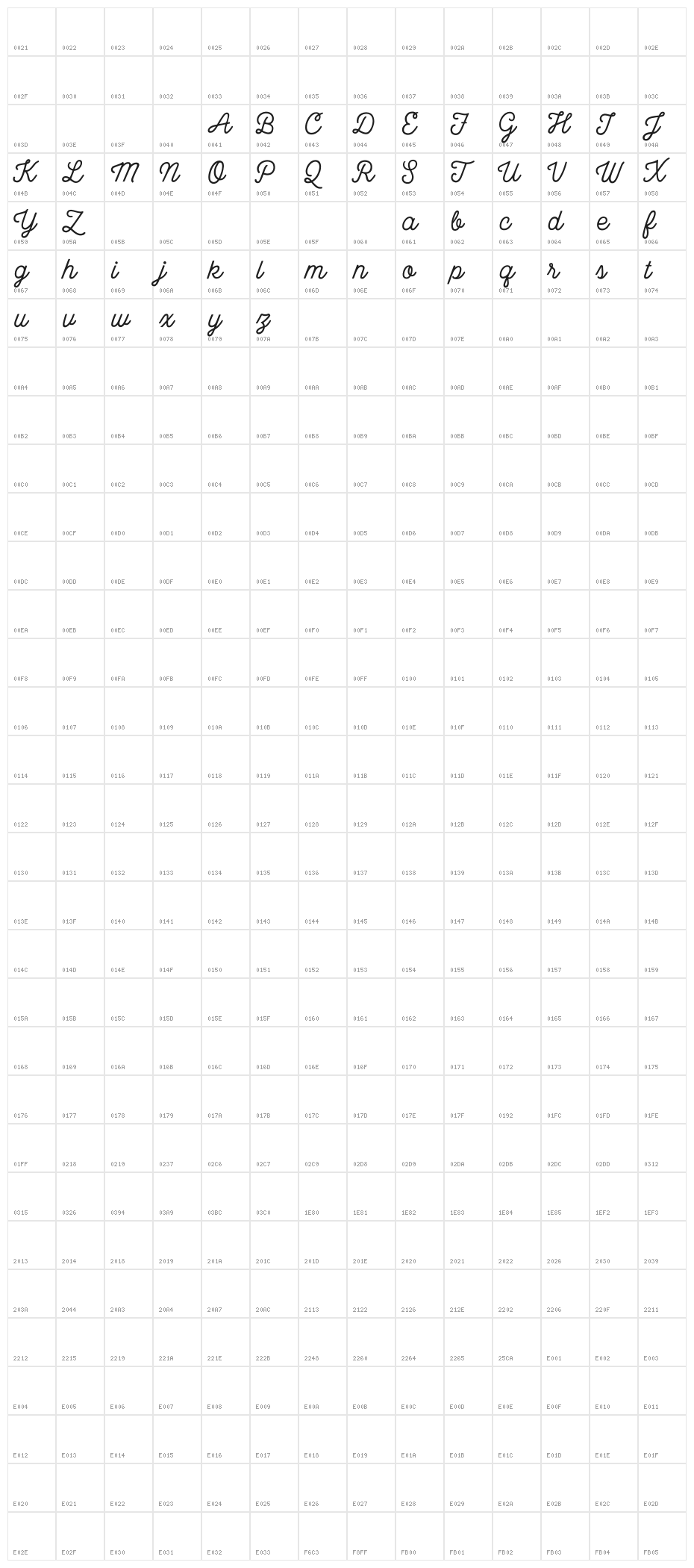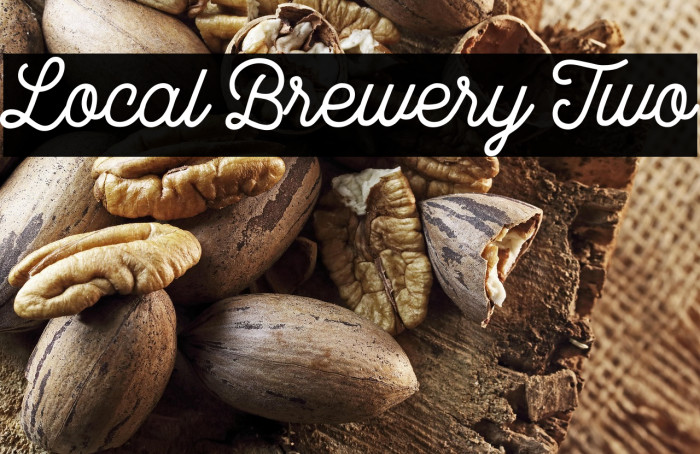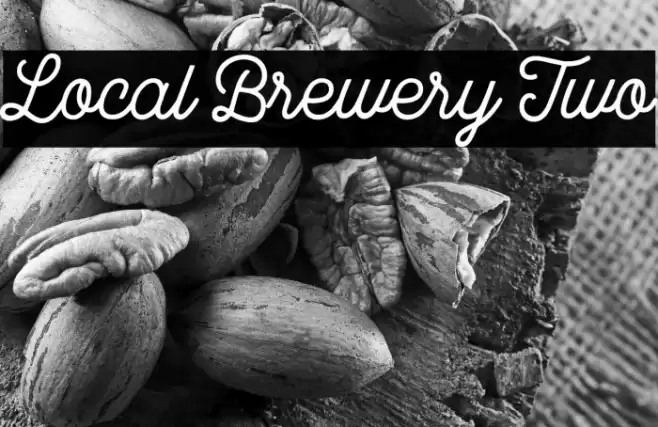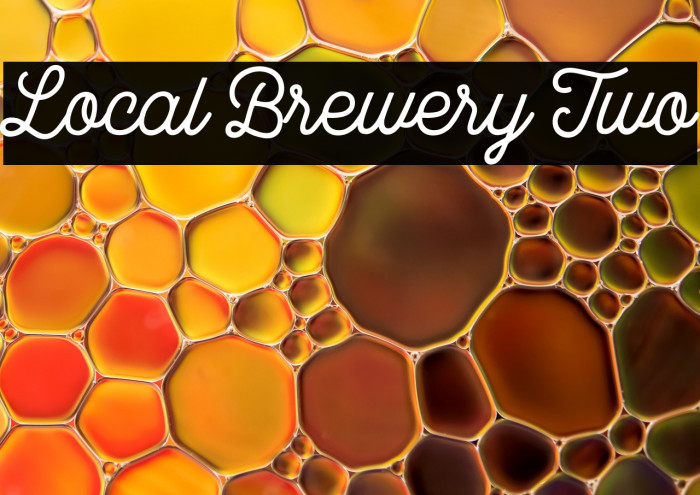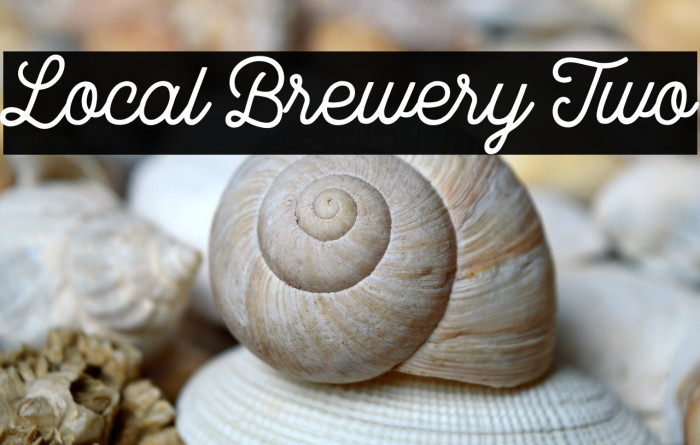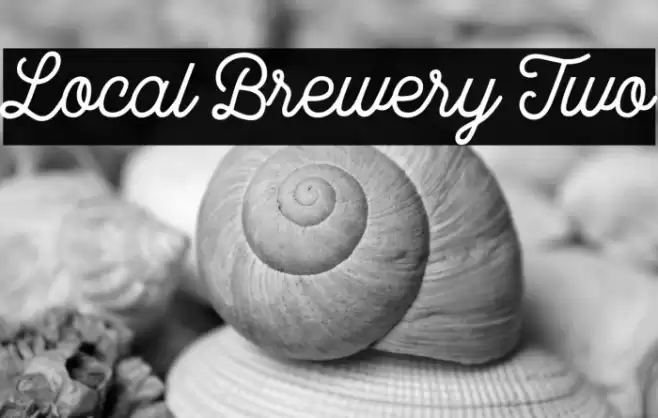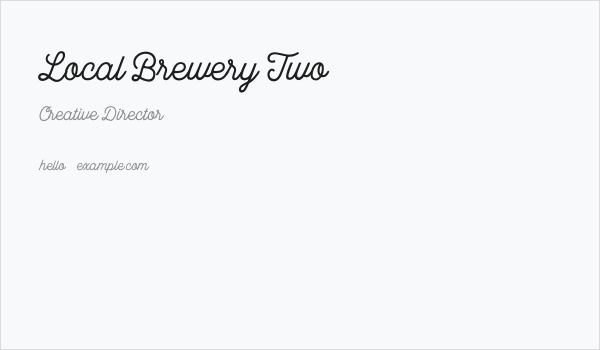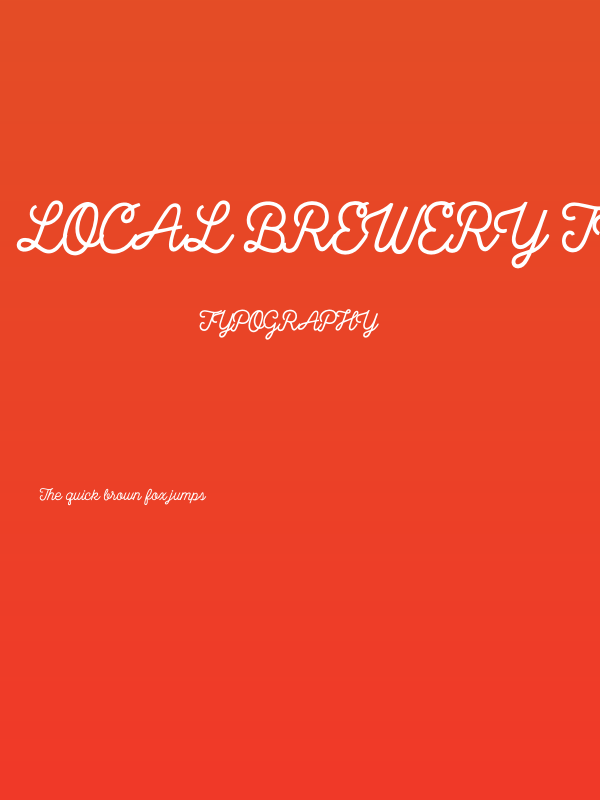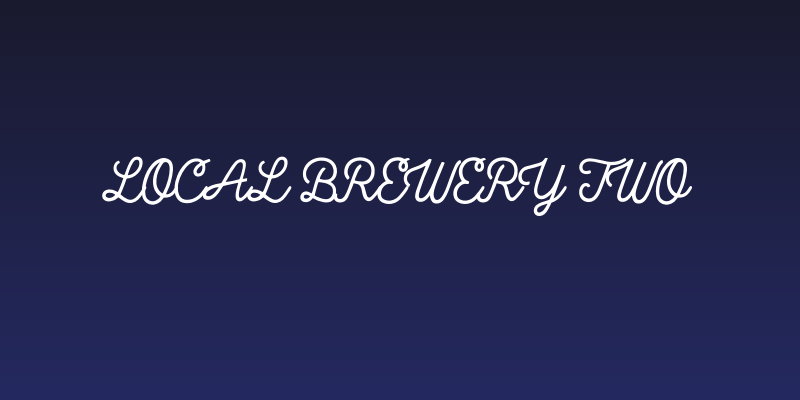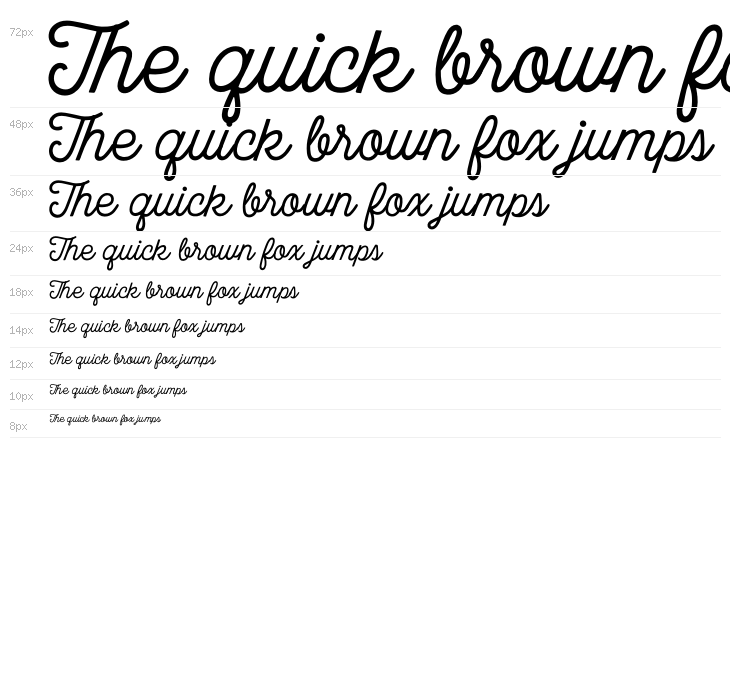
Local Brewery Two Font
Local Brewery Two Description
This font exudes a charming and elegant script style, characterized by its fluid, connected strokes that mimic the natural flow of handwriting. The uppercase letters are gracefully looped and slightly slanted, adding a touch of sophistication and flair. The lowercase letters maintain a consistent style, with smooth curves and a harmonious balance between each character. The overall appearance is both classic and modern, making it versatile for various design applications. The font's legibility is enhanced by its moderate contrast in stroke thickness, ensuring readability while maintaining its decorative appeal.
| Proposed Projects | Ideal for wedding invitations, greeting cards, branding projects, and elegant packaging designs. |